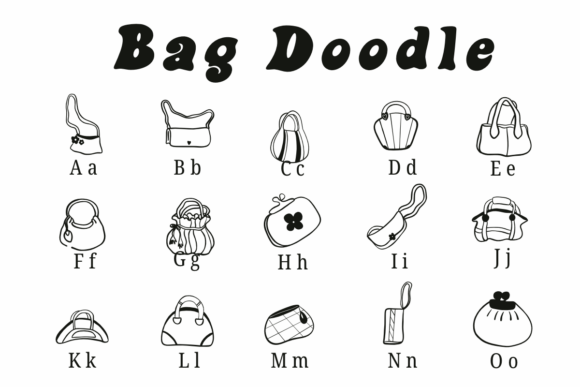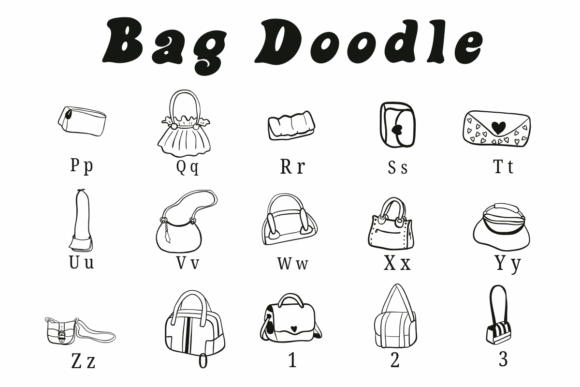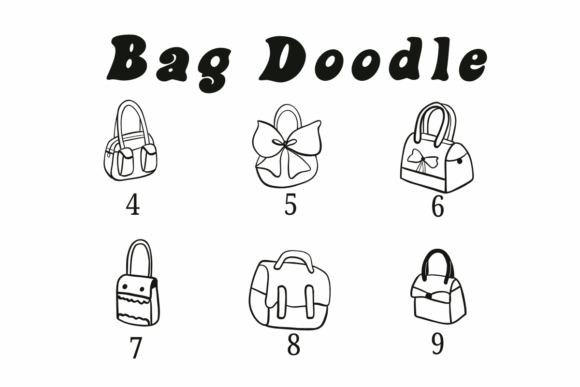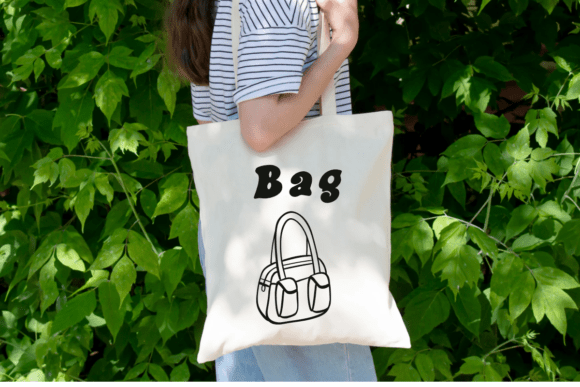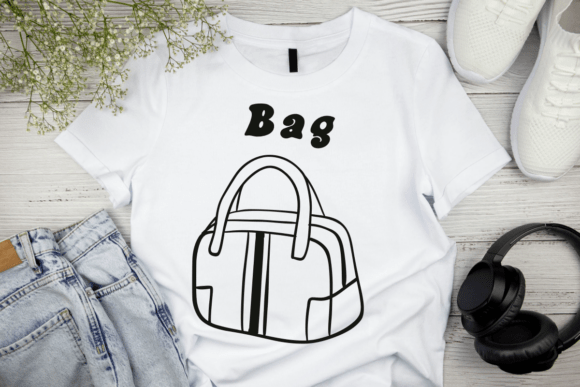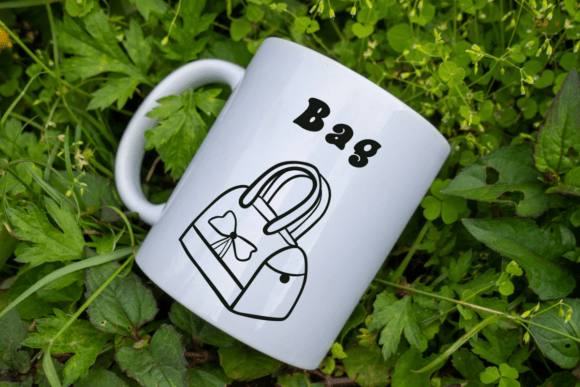
Get Ready to Create with Style: Bag Doodle Font
You know that moment when a spark of creativity hits you and you just can’t wait to bring your idea to life? For designers and crafty enthusiasts, that moment is often accompanied by a flurry of sketches, color swatches, and font browsing. And when it comes to adding that perfect finishing touch, a stylish font can make all the difference. That’s where the Bag Doodle Font comes in – a fashionable dingbats font that’s perfect for elevating your creative projects.
This versatile font is designed to add a touch of whimsy and personality to your designs, from wedding invitations and DIY crafts to decorations and logos. Whether you’re a seasoned designer or a crafty beginner, the Bag Doodle Font is a valuable addition to your toolkit. Its stylish aesthetic and endless possibilities make it a must-have for anyone looking to add a little extra flair to their creative endeavors.
Key Features of Bag Doodle Font
- Character Set: This font includes a comprehensive set of characters, including uppercase and lowercase letters, numbers, and punctuation marks, making it suitable for various design applications.
- Unique Characteristics: Bag Doodle Font features a playful, doodle-style design with irregular lines and creative flourishes, adding a touch of whimsy to any text-based project.
- Font Style: This font comes in three distinct styles: Regular, Italic, and Bold, providing designers with flexibility to choose the perfect style to suit their design needs.
Bag Doodle Font Review
As a designer, I’ve had the chance to work with Bag Doodle Font, and I have mixed feelings about it. Here’s my honest review.
- Unique and playful style: The font has a quirky, doodle-like quality that’s perfect for adding a touch of whimsy to designs.
- Good legibility: Despite its playful nature, the font is still easy to read, even at smaller sizes.
- Great for titles and headings: The font’s bold, eye-catching style makes it ideal for titles, headings, and other display text.
- Limited language support: The font may not be suitable for languages that require a lot of accented characters or complex typography.
- May not be suitable for body text: While the font is great for titles and headings, it may be too playful or distracting for body text.
- Not suitable for formal designs: The font’s playful style may not be suitable for formal or professional designs, such as business reports or academic papers.
Overall, I think Bag Doodle Font is a great addition to any designer’s toolkit, but it’s not a one-size-fits-all solution. Use it sparingly and in the right context, and it can add a lot of personality and charm to your designs.
Tips for Getting the Most Out of Bag Doodle Font
Use the Bag Doodle Font for creative projects, such as invitations, party decorations, and social media graphics.
Experiment with different font sizes, colors, and combinations to create unique and eye-catching designs.
Use the font in conjunction with other design elements, such as graphics and images, to create visually appealing and engaging content.
Wedding invitations and party decorations